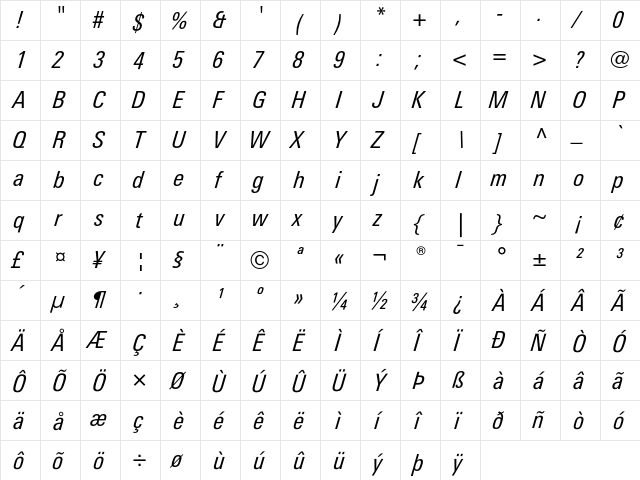
LinotypeUnivers CondRegularItalic
Design Context for LinotypeUnivers Typeface
LinotypeUnivers is a composed and adaptable typeface that performs quietly and consistently across a wide range of design contexts. The slanted form adds forward momentum and visual energy. The condensed width makes it efficient for tight spaces without sacrificing legibility.
Pro Tip: Use LinotypeUnivers for emphasis, pull quotes, and subheadings where its slanted energy can add rhythm to the layout.